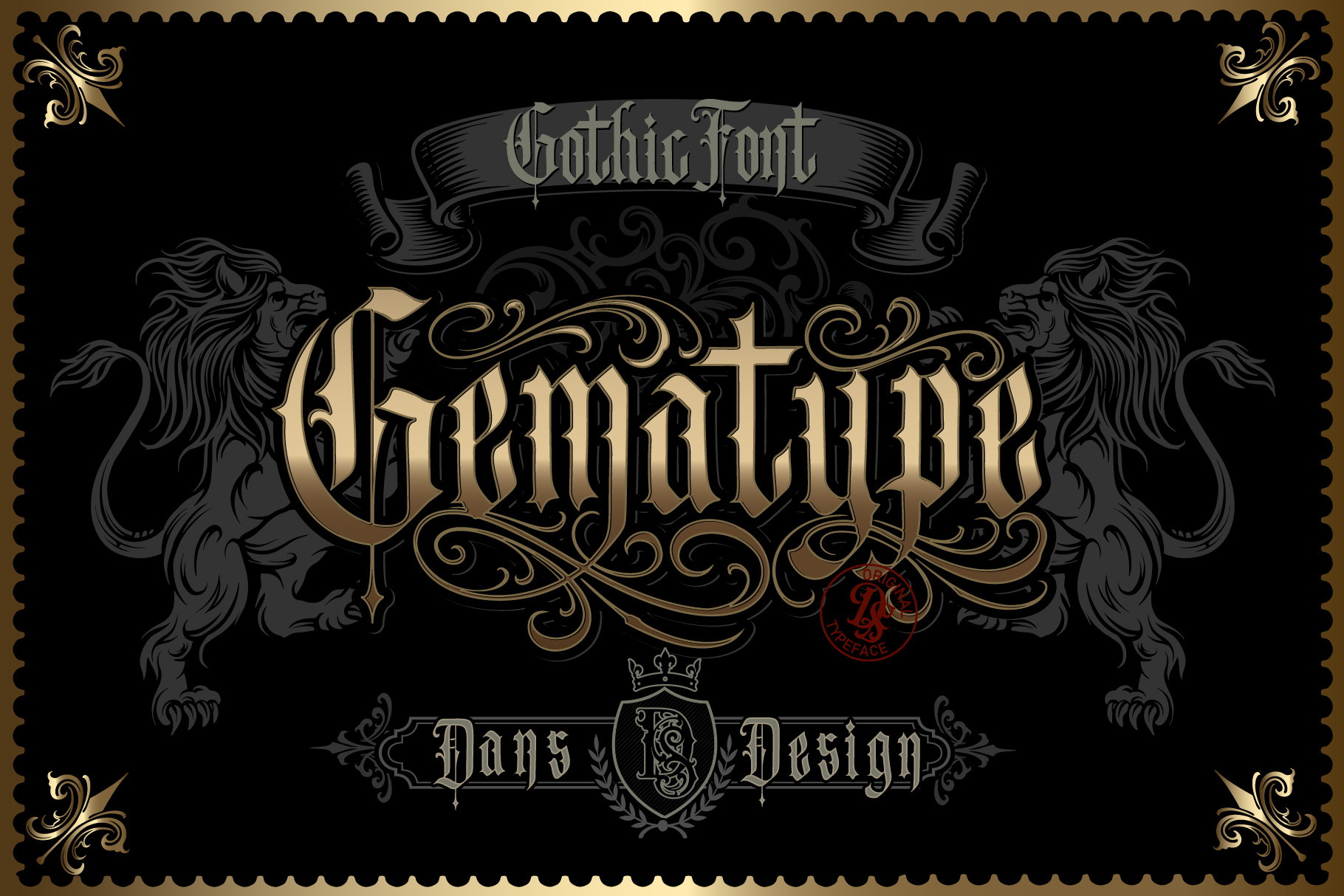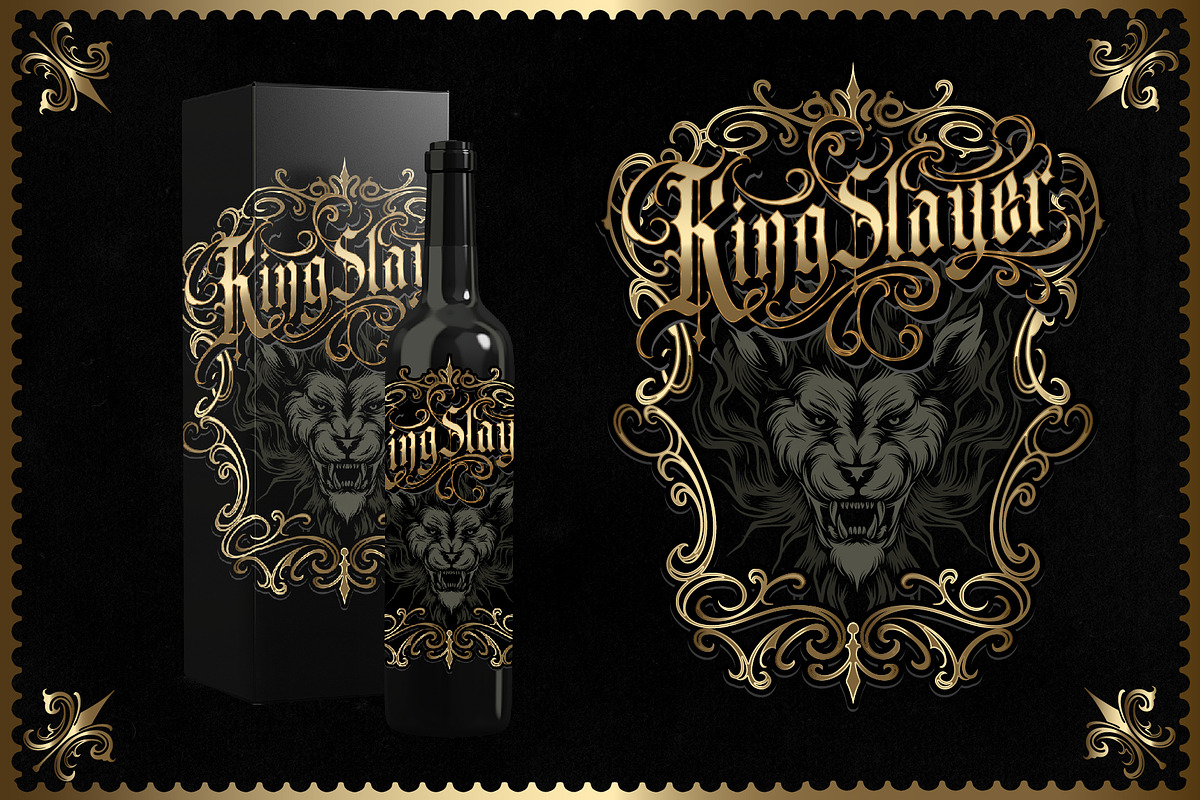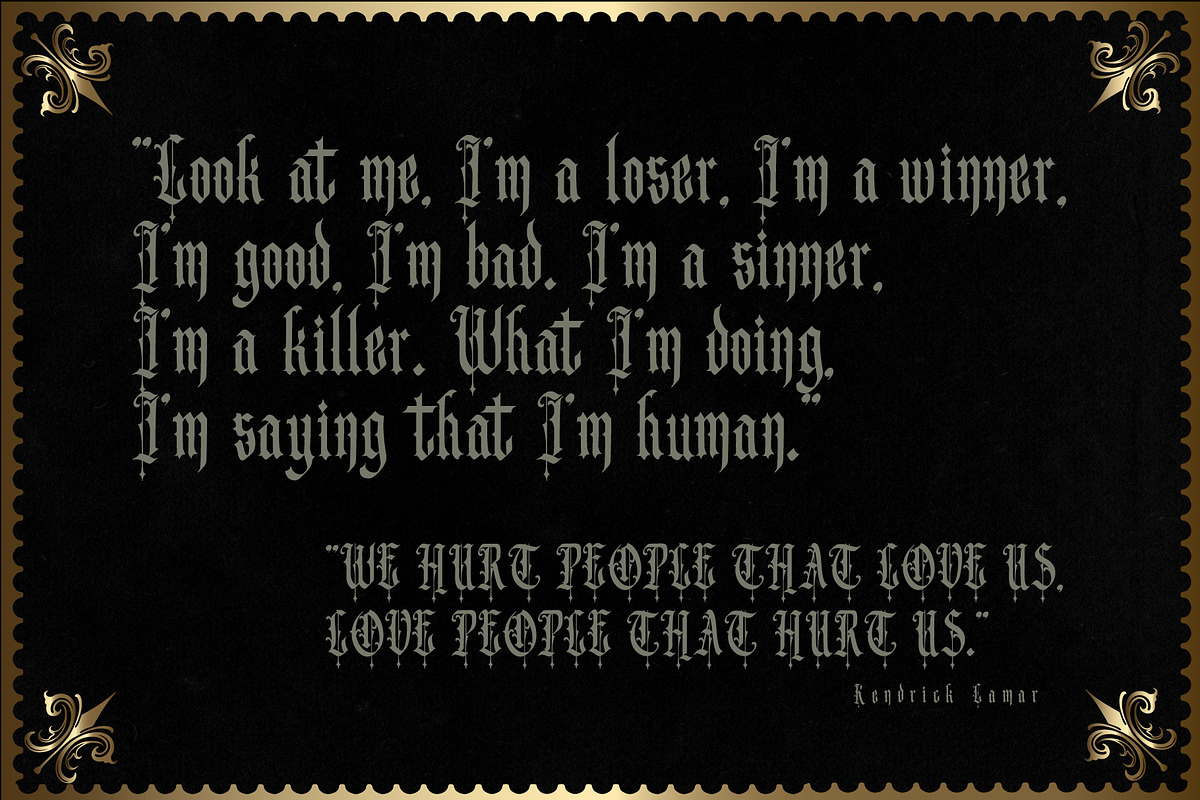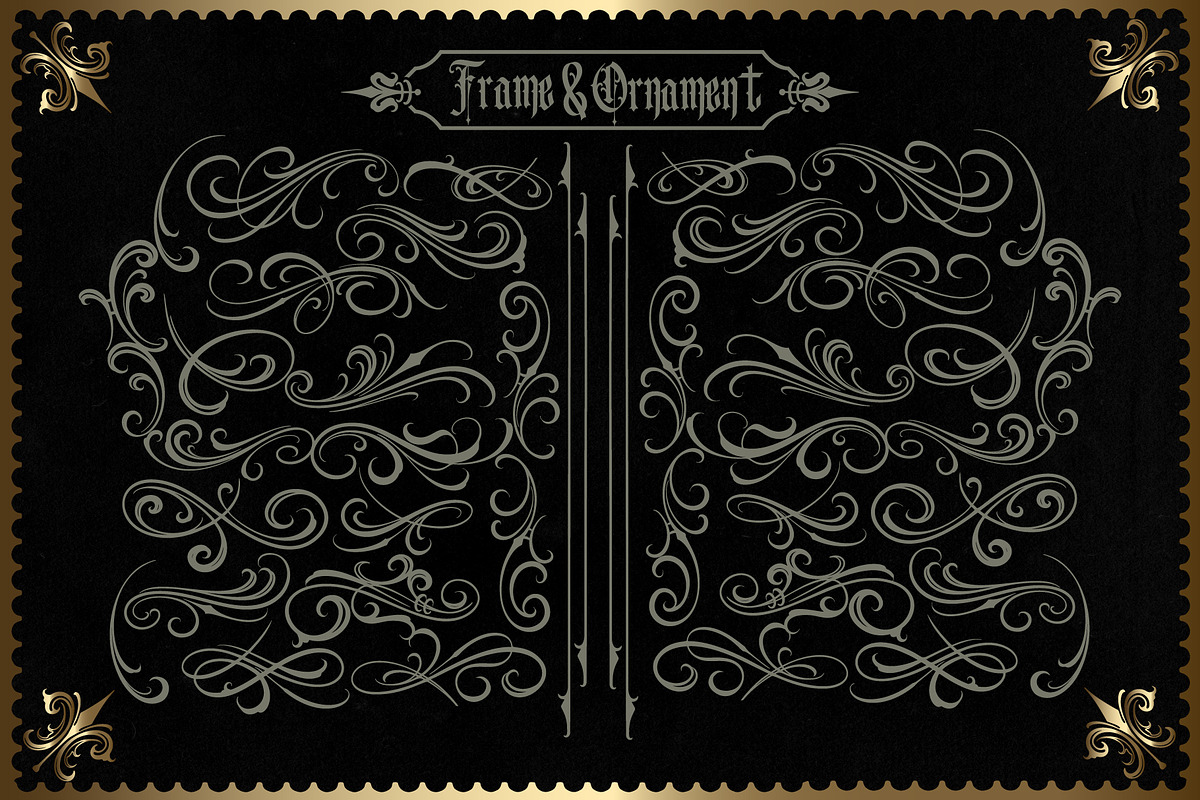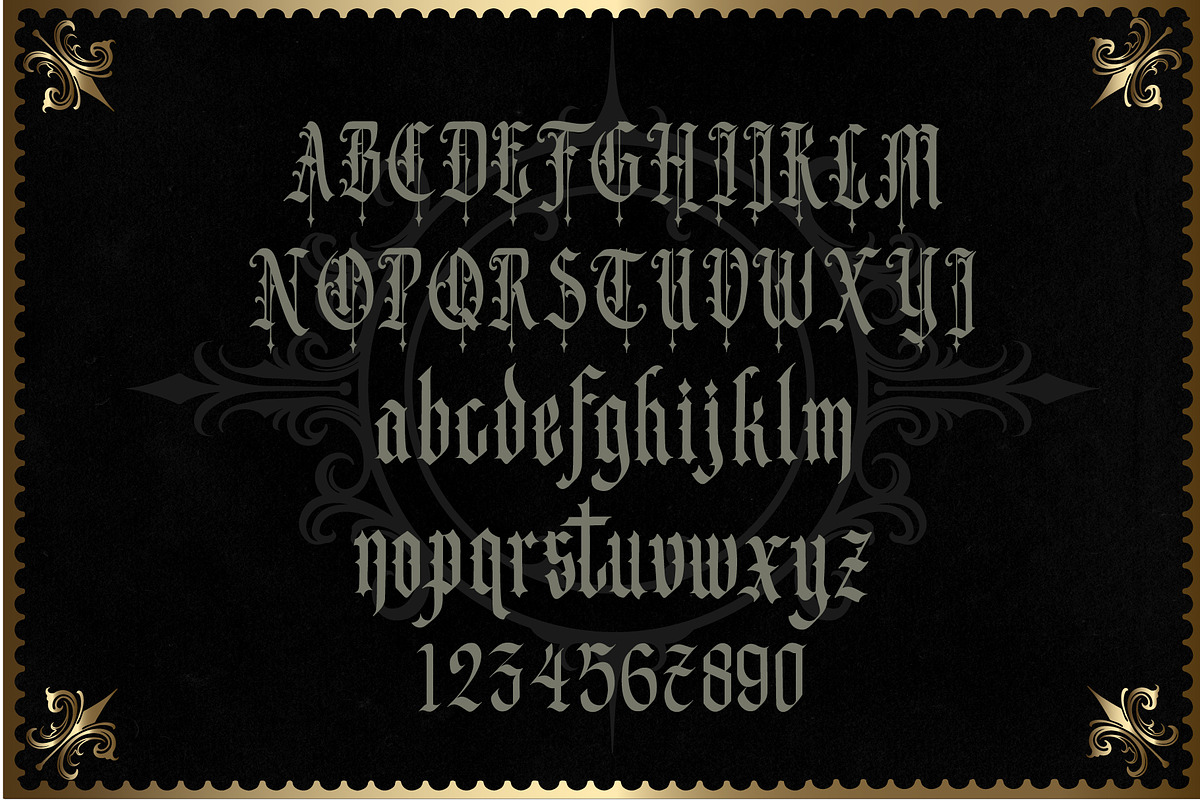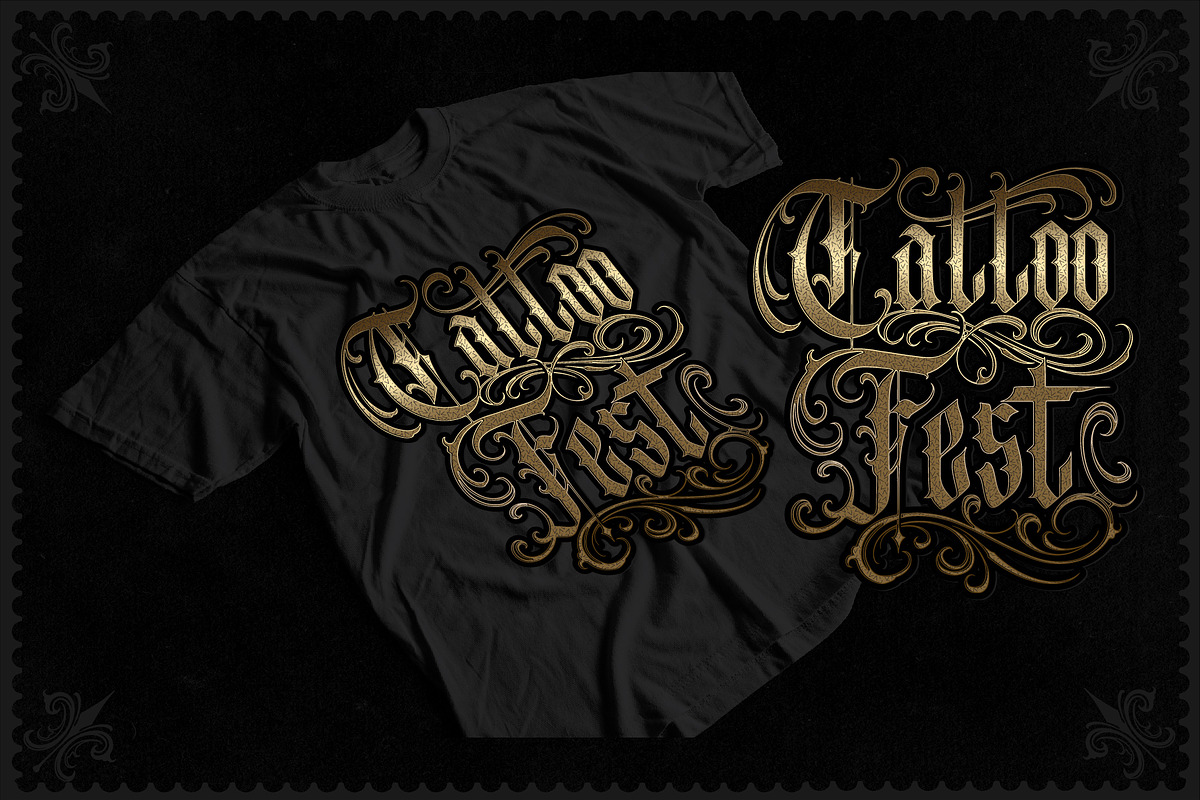
Gematype Blackletter + Ornament font
Dansdesign Proudly present " Gematype " modern blackletter font, This font is made with references to various letters that I combine and design with my style.
Gematype are great and usefull for product logo, poster title, headline, packaging, badge, wedding card logo, clothing brand logo,Vintage design and much more
- Character Set A-Z (Uppercase & Lowercase)
Note This display font is a combination of fonts and ornaments that we include in both font and vector files we will update this alternate font next.